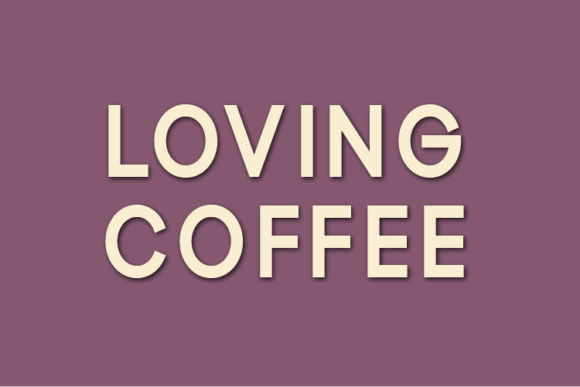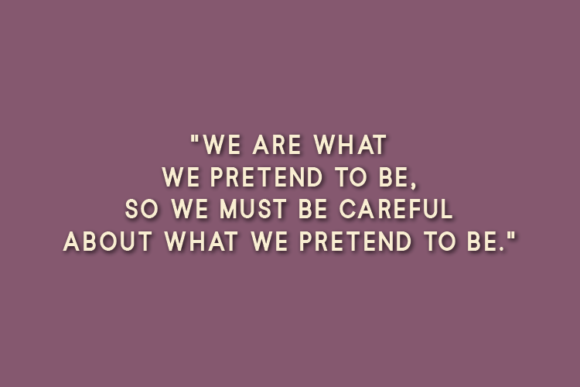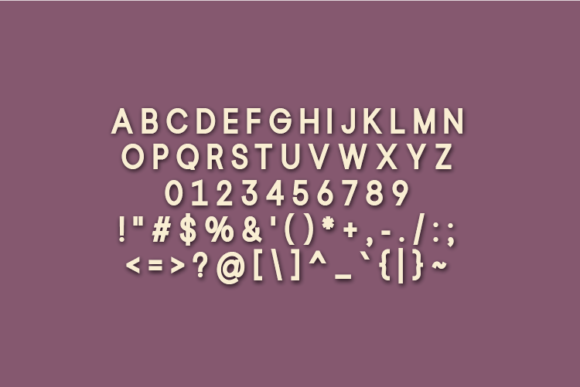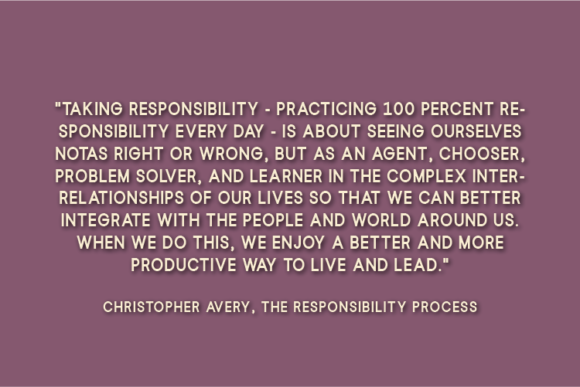
Loving Coffee Font Font
About the Loving Coffee Font Font
Explore the possibilities with Loving Coffee Font Font, a font that offers both beauty and functionality. Loving Coffee is a modern, classy sans serif typeface.  It is suitable for logotype, headline font, in corporate identity, brand identity, apparel industry, poster, music, movie, game, magazine, book, comic, cartoon, YouTube, Instagram, website, or any of your creative design projects.
Loving Coffee’s clean lines and modern feel make it ideal for headlines, logos, and short-form text on packaging or posters. Its sophistication lends itself well to branding projects for upscale coffee shops, boutique hotels, or premium lifestyle products. However, its relatively high x-height and lack of extensive character set make it less suitable for body text or UI elements requiring extensive readability.
Pairing Loving Coffee with a complementary serif like Garamond for body copy creates elegant contrast. For a more modern feel, a geometric sans-serif like Futura provides a balanced, yet distinct, counterpoint. A playful script font could be used sparingly as an accent, adding a touch of personality without overwhelming the overall design.
The font projects a modern, sophisticated, and slightly playful personality, suggesting a brand that is both stylish and approachable. Avoid using it for projects requiring a highly serious or formal tone.
Loving Coffee Font Font Usage Examples
Loving Coffee Font Font Example